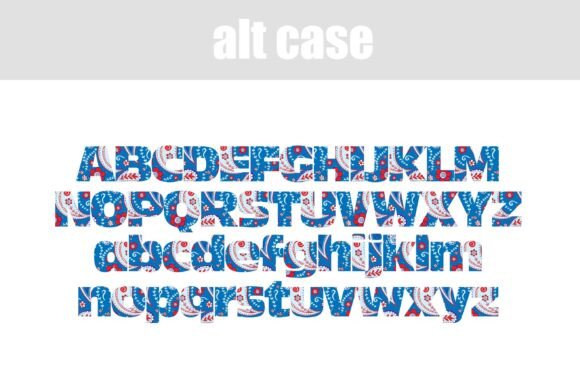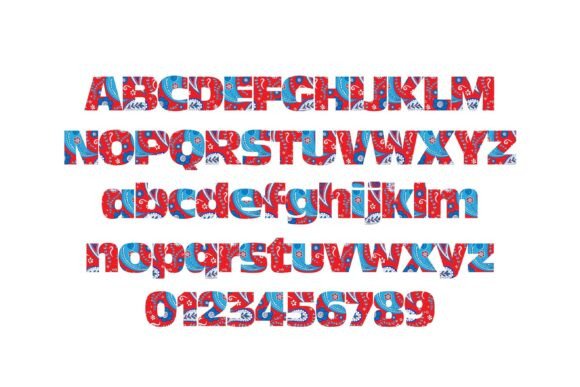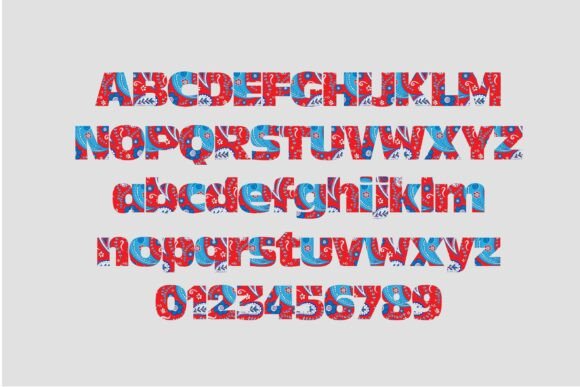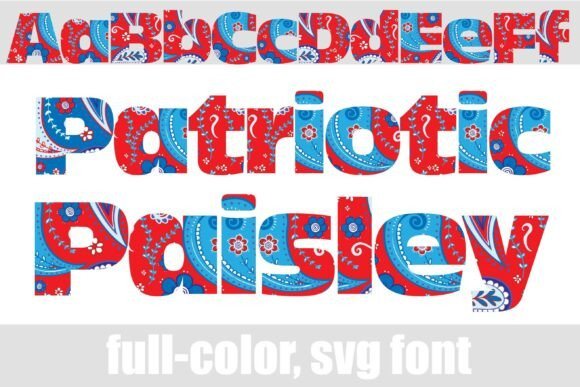
Introduction to Patriotic Paisley Font
This full-color font features a chunky sans serif with American paisley throughout.
There is an alt case of alternate colorings of each letter that you can access through your system or Silhouette’s glyph map OpenType full-color (SVG) fonts are installed like any normal .